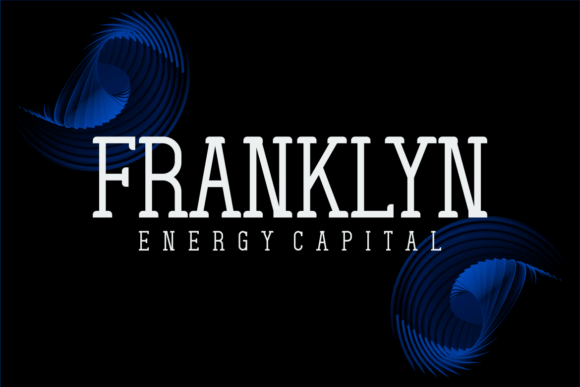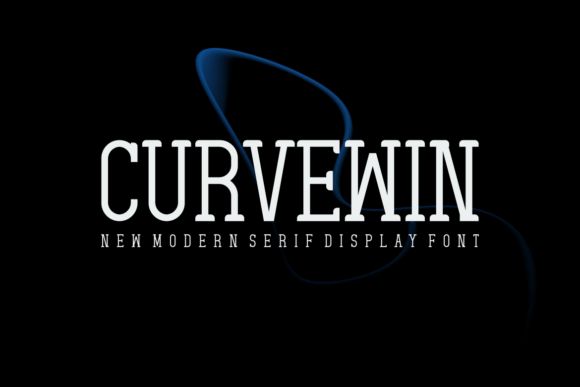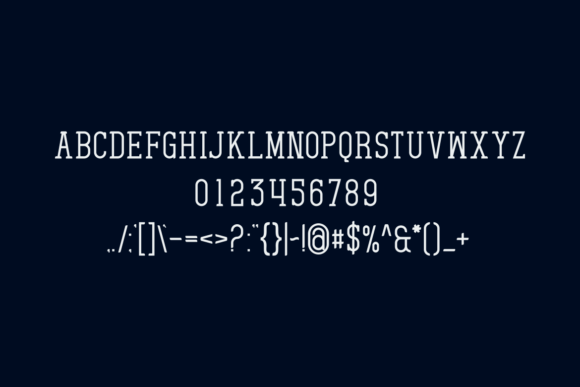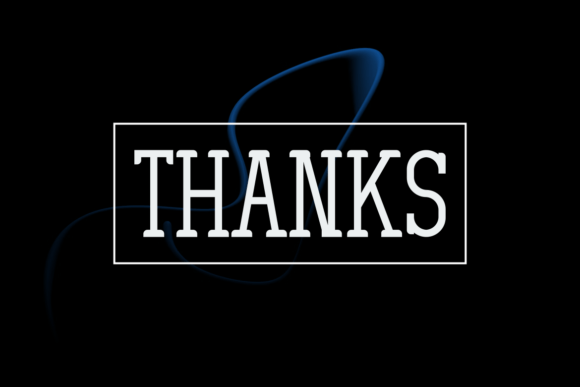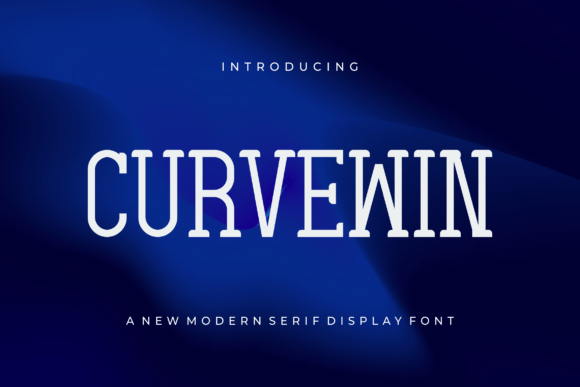
Introducing Curvewin Font: The Perfect Blend of Classic Elegance and Modern Sophistication
In the world of typography, fonts play a crucial role in conveying the tone and personality of a brand or design. For designers and crafters, finding the perfect font that combines style, elegance, and modernity can be a daunting task. However, if you’re looking for a font that embodies the perfect blend of classic sophistication and contemporary flair, look no further than Curvewin Font.
What is Curvewin Font?
Curvewin is a modern serif font that boasts elegant curves and clean lines, making it an ideal choice for stylish headlines and text. This beautifully crafted font seamlessly blends traditional style with a fresh, contemporary look, resulting in a unique and captivating visual identity.
Key Features of Curvewin Font
So, what sets Curvewin Font apart from other fonts in its category? Here are some of its key features:
- Elegant Curves: Curvewin Font features smooth, flowing curves that add a touch of sophistication and elegance to any design.
- Clean Lines: The font’s clean lines and precise letterforms ensure that your text remains clear and legible, even at smaller font sizes.
- Modern Twist: Curvewin’s modern serif design gives it a fresh and contemporary feel, making it perfect for designs that require a bit of flair.
- Versatile: This font is highly versatile and can be used for a wide range of design projects, from logos and branding to headings and body text.
Who is Curvewin Font Suitable for?
Curvewin Font is an excellent choice for designers, crafters, and businesses looking to add a touch of elegance and sophistication to their designs. Whether you’re working on a luxury brand, a fashion magazine, or a high-end product, this font is sure to impress.
Some of the design projects that Curvewin Font is well-suited for include:
- Logo Design: Create a stunning logo that exudes elegance and sophistication with Curvewin Font.
- Branding: Establish a strong brand identity with this font’s unique blend of classic and modern style.
- Headings and Titles: Use Curvewin Font to create eye-catching headings and titles that add a touch of luxury to your designs.
- Fashion and Beauty: This font is perfect for fashion and beauty brands looking to convey a sense of style and sophistication.
Tips for Using Curvewin Font
To get the most out of Curvewin Font, here are some tips to keep in mind:
- Use it as a Headline Font: Curvewin Font is designed to make a statement, so use it as a headline font to grab attention and add visual interest.
- Pair it with a Sans-Serif Font: For body text, consider pairing Curvewin Font with a clean sans-serif font to create a beautiful contrast.
- Experiment with Font Sizes: Don’t be afraid to experiment with different font sizes to create visual hierarchy and add emphasis to your text.
| Font Name | Curvewin Font |
| Author | artchiles design |
In conclusion, Curvewin Font is a stunning modern serif font that offers the perfect blend of classic elegance and contemporary sophistication. With its elegant curves, clean lines, and versatile design, this font is sure to become a favorite among designers and crafters. Whether you’re working on a luxury brand, a fashion magazine, or a high-end product, Curvewin Font is an excellent choice for adding a touch of style and sophistication to your designs.